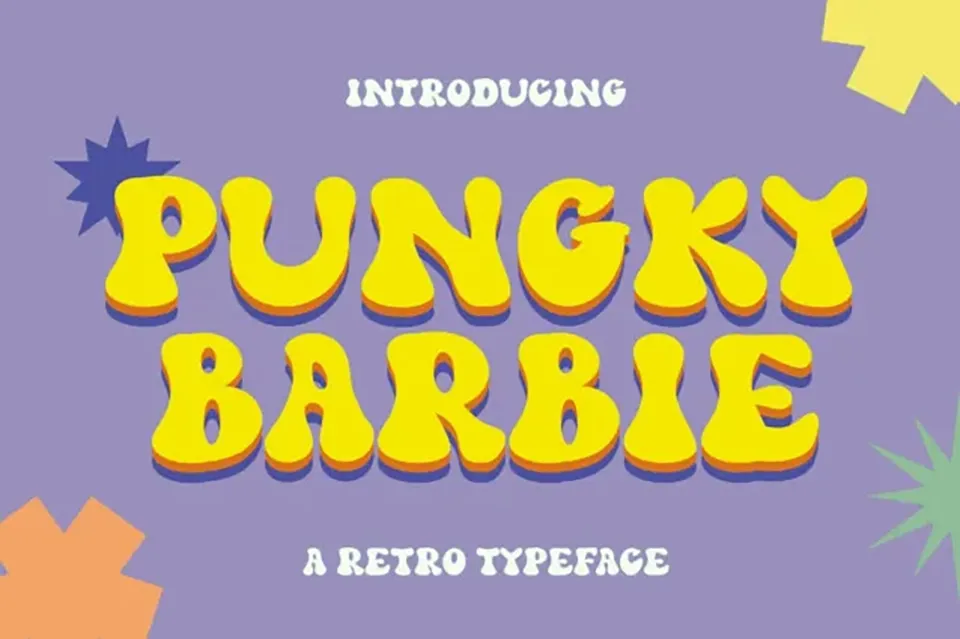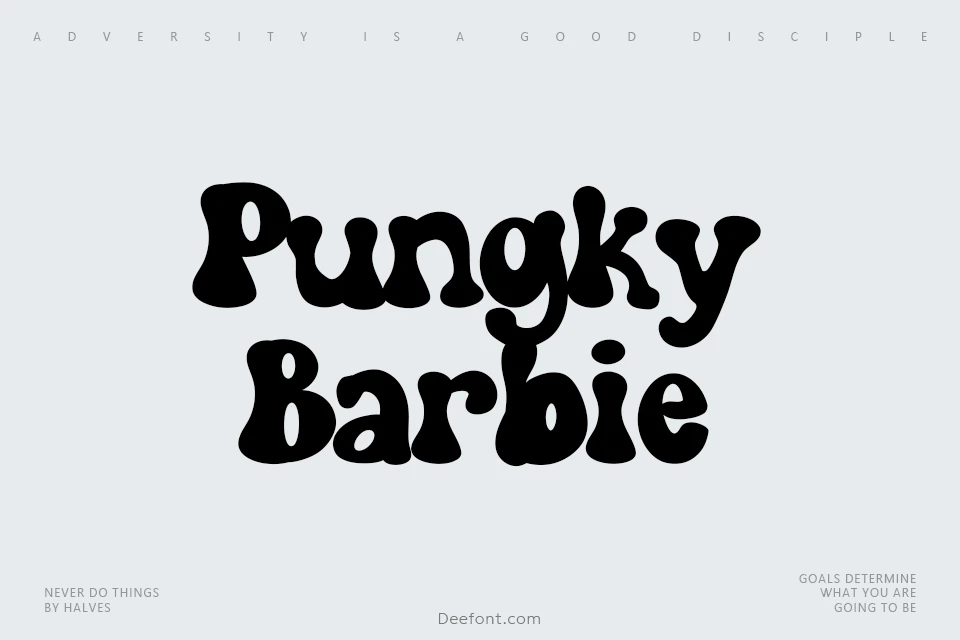
Pungky Barbie Font
Pungky Barbie Font is a retro typeface that brings a playful, groovy vibe to any design. Its rounded, bubbly letters evoke a sense of nostalgia, making it perfect for projects that aim for a vintage aesthetic. Ideal for posters, headlines, and fun branding, Pungky Barbie Font adds a unique and eye-catching touch. With its bold and friendly appearance, this font ensures your message stands out with a delightful, retro charm, capturing the essence of fun and whimsy in every letter.